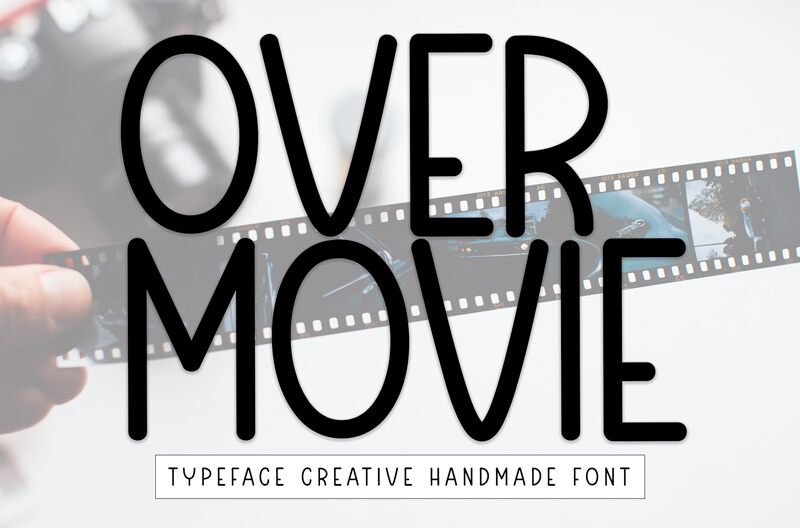
Over Movie
Over Movie is a charming and whimsical handwritten font created by Andi Moz. This playful display typeface exudes a sweet, friendly vibe with its organic, soft-edged letterforms. The irregular baseline and varying stroke weights lend a casual, handcrafted aesthetic, conveying a sense of warmth and approachability.
This versatile font can elevate a variety of design projects, from wedding invitations and greeting cards to branding materials and product packaging. Its playful yet legible style makes it an ideal choice for adding a personalized, handmade touch to designs that require a touch of playfulness and charm.